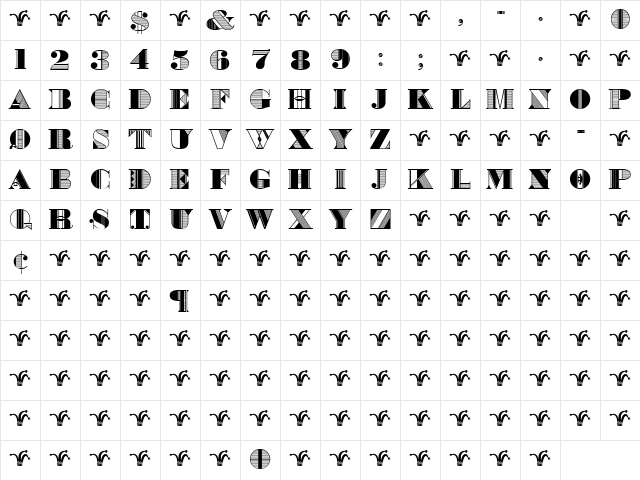
Bradley Initials
Style: Initials
Design Context for Bradley
Bradley is a composed and adaptable typeface that performs quietly and consistently across a wide range of design contexts.